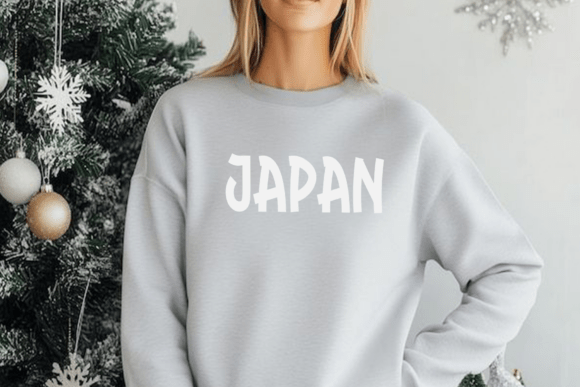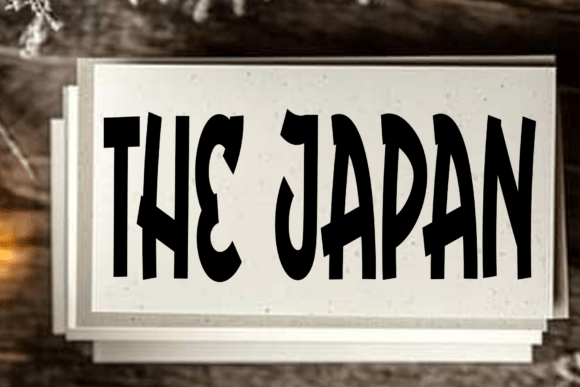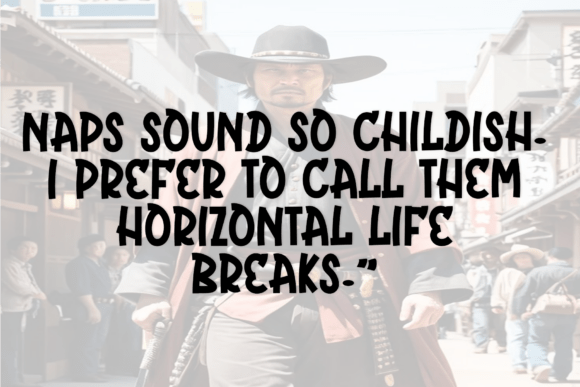
East Meets West: The Bold Cultural Fusion of Cowboy Japane
I’ll never forget the design project that led me to discover Cowboy Japane. I was working on a branding campaign for a fusion restaurant that combined Japanese and American cuisines. My client wanted a font that would reflect the bold, adventurous spirit of their restaurant, but also pay homage to the cultural heritage of both countries. I scoured the internet for the perfect font, but nothing seemed to fit the bill. That was until I stumbled upon Cowboy Japane, a unique typeface that blends the rugged, weighted strength of Western “cowboy” lettering with the artistic, rhythmic brushstrokes characteristic of Japanese calligraphy.
A Standout Title in Our Modern Handwritten Collection
Cowboy Japane is part of the Modern Handwritten Collection, a series of fonts designed to capture the essence of human handwriting and creativity. This font is a true standout, with its bold, adventurous vibe and international flair. It’s perfect for designers, crafters, and creative hobbyists looking to add a touch of excitement to their projects.
- ✨ Unique blend of Western and Japanese influences
- ✅ High-impact display font that’s perfect for bold designs
- 💥 Professional and adventurous feel that’s sure to turn heads
- 🎨 Artistic, rhythmic brushstrokes that add a touch of elegance
While Cowboy Japane is an amazing font, it’s not without its quirks. Here are a few things to keep in mind:
- 🤔 Some characters may be a bit too bold for certain designs
- ⚠️ Limited use of lowercase letters, which may limit its use in certain contexts
Cowboy Japane was inspired by the bold, adventurous spirit of the American West and the elegant, artistic traditions of Japanese calligraphy. The font’s designer wanted to create a typeface that would capture the essence of both cultures and create a unique, eye-catching aesthetic.
A: Cowboy Japane is a unique typeface that blends the rugged, weighted strength of Western “cowboy” lettering with the artistic, rhythmic brushstrokes characteristic of Japanese calligraphy.
A: Cowboy Japane is perfect for fusion restaurant branding, cinematic posters, bold apparel designs, and any project that needs a touch of international flair.